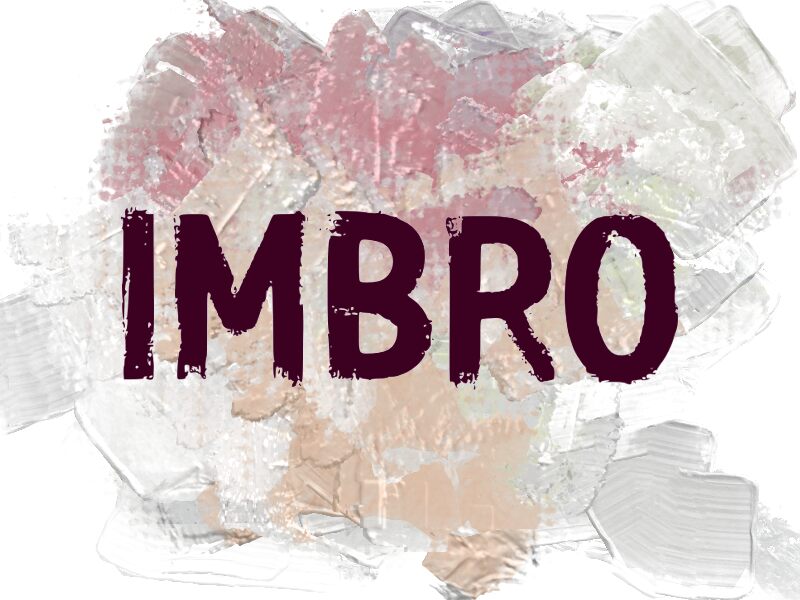
IMBRO
Imbro font, designed by wep, is a display typeface that adds an eroded and distressed appearance to any typographic work. Its grunge texture and informal style give it a rugged aesthetic that visualizes a modern urban vibe. This free font bridges the gap between timeless and fashionable and makes your work identifiable even at first glance.
Use Imbro for posters, magazine covers, website banners, social media pages/posts, music album covers, t-shirts/clothing items design, sport merch packaging products/boxes/bags design projects and much more!